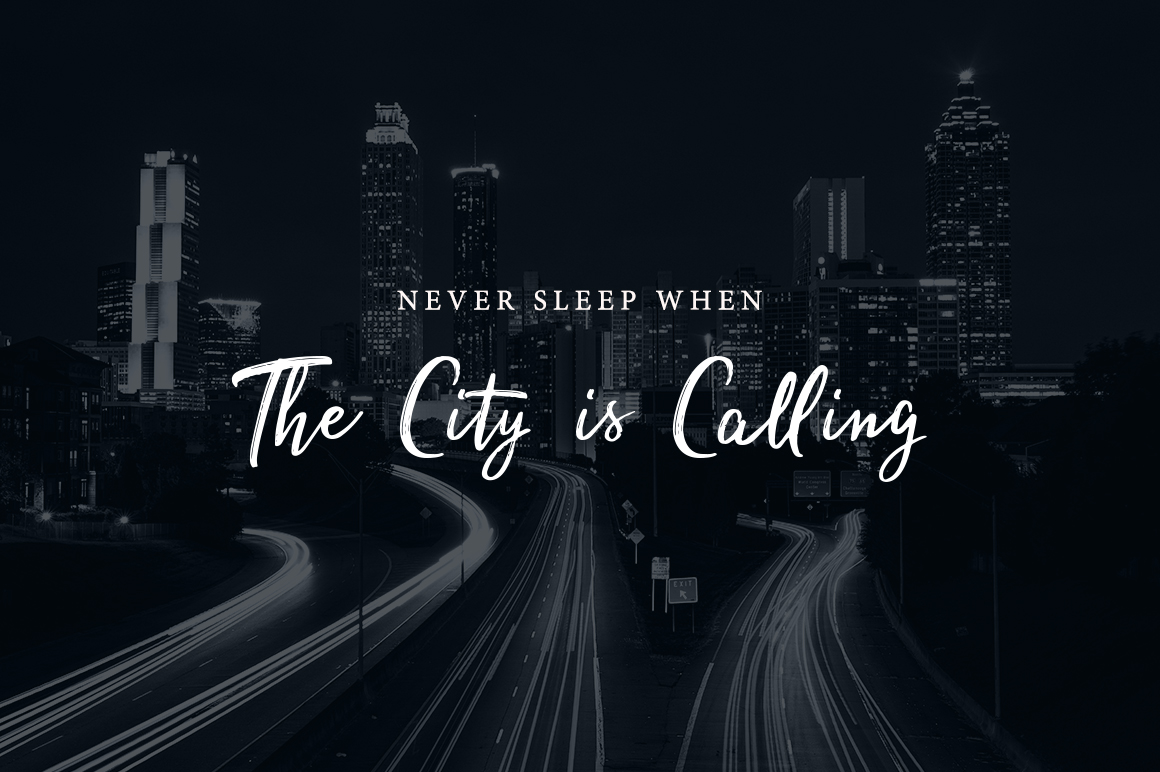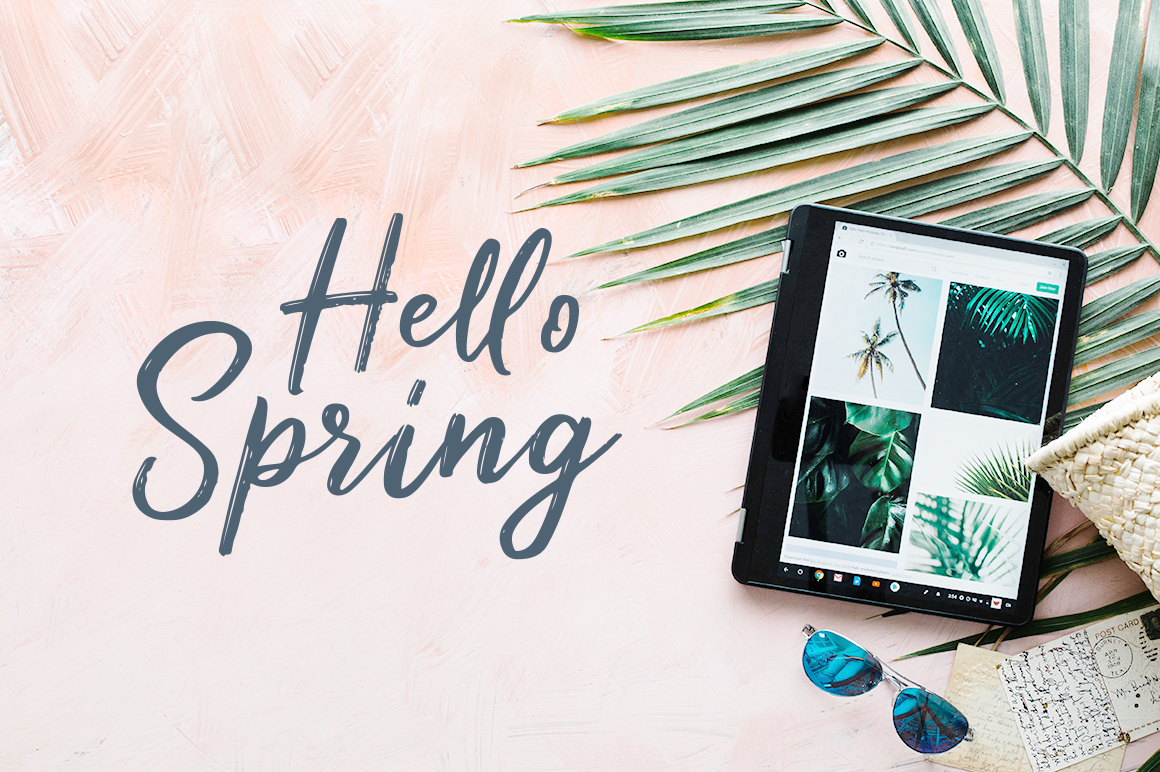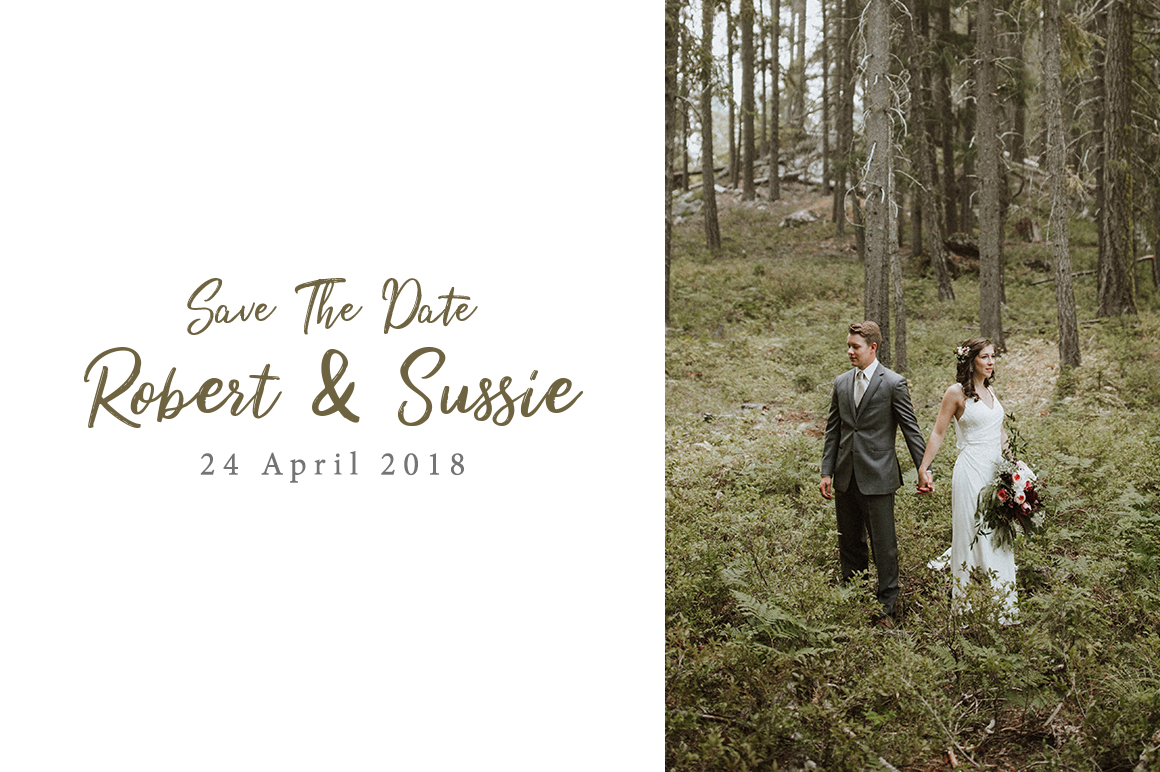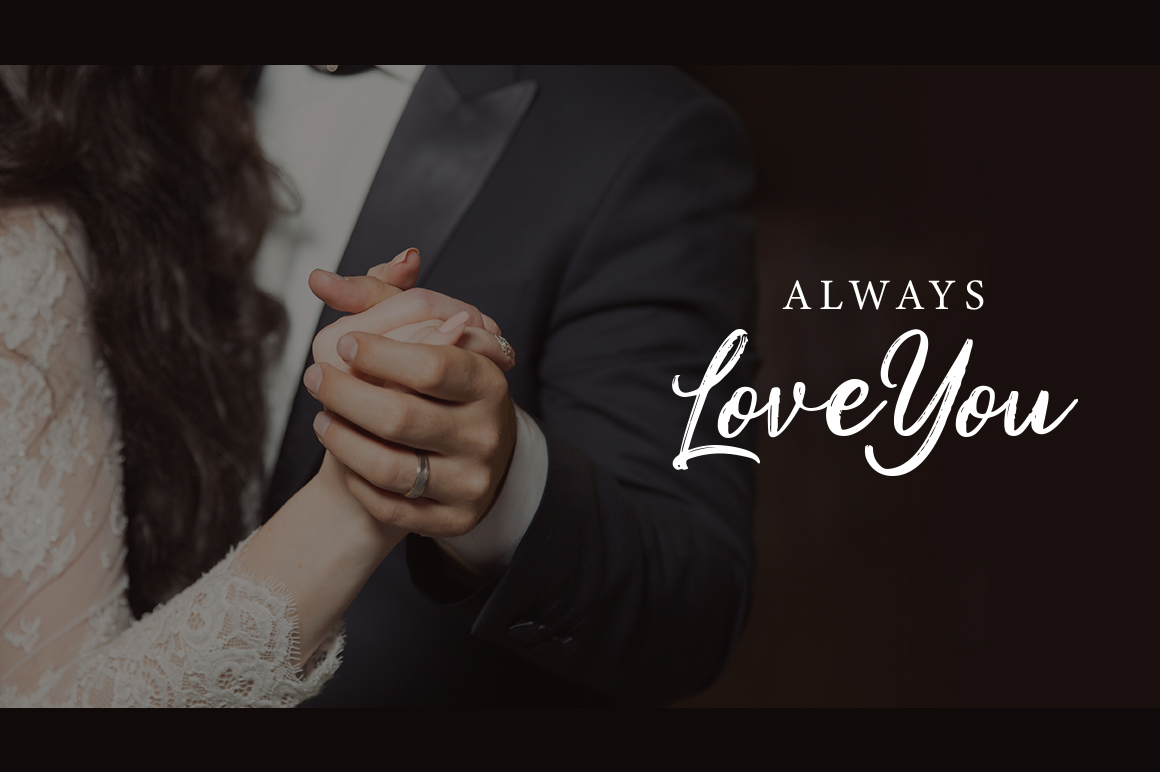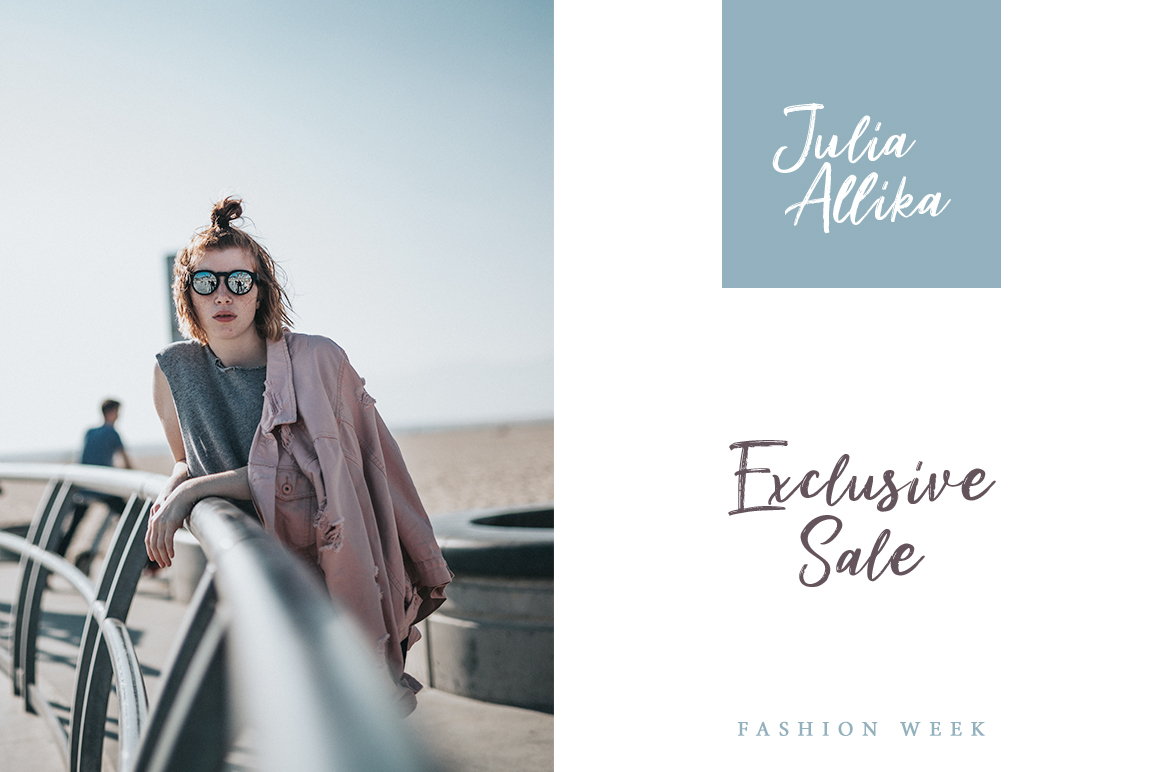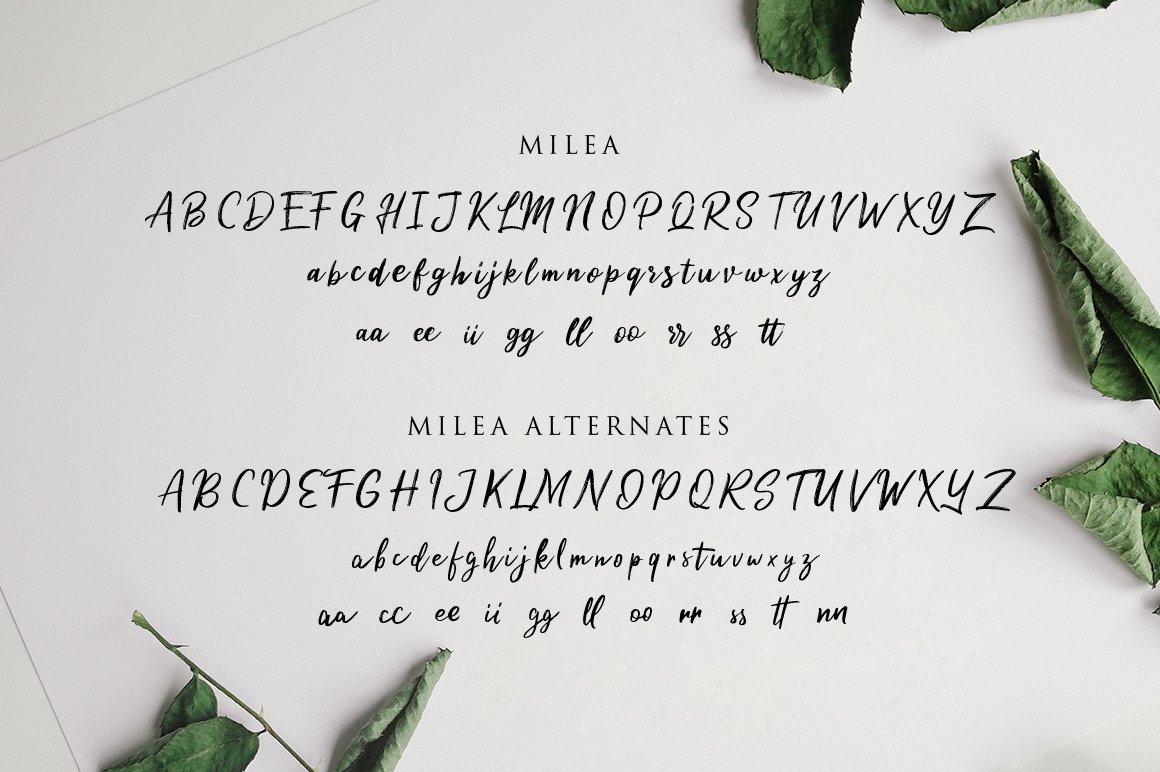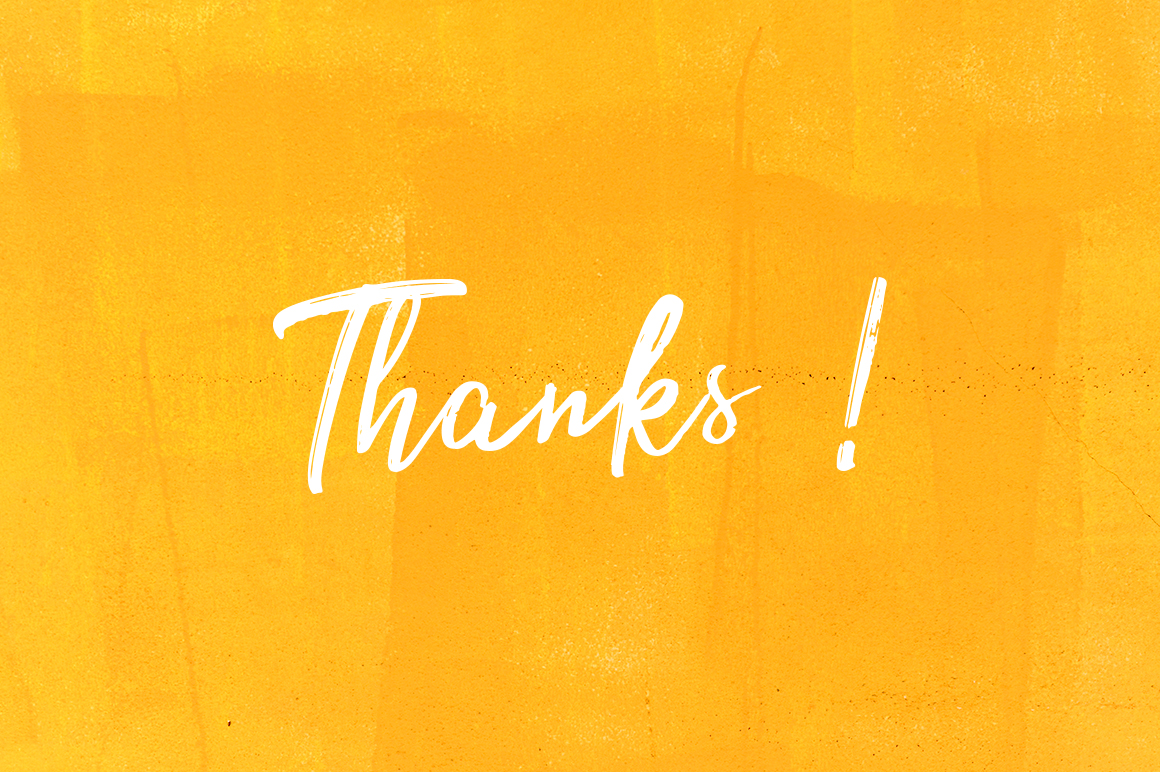
Milea Font
About Milea Font
Milea is a gorgeous hand-brushed script font, beautifully crafted to have a dry brush appeal. This is a perfect signature font for branding your content, giving a rustic charm to your special event invitations, and more!